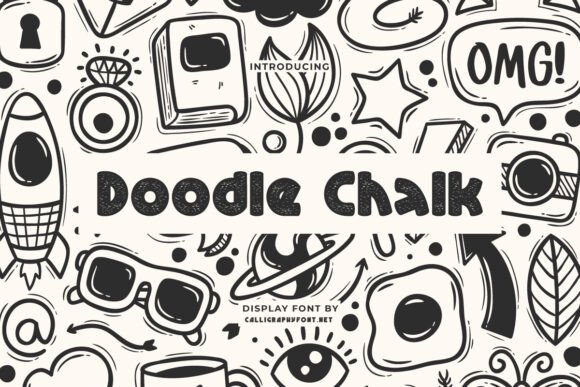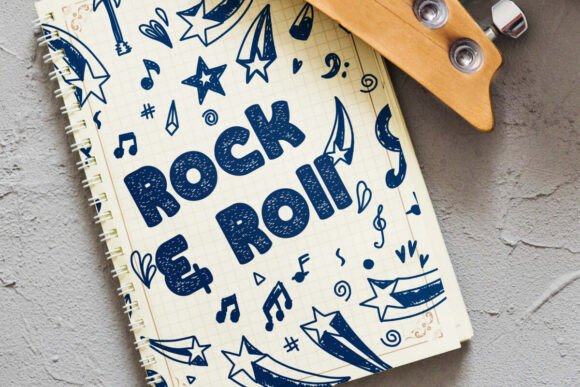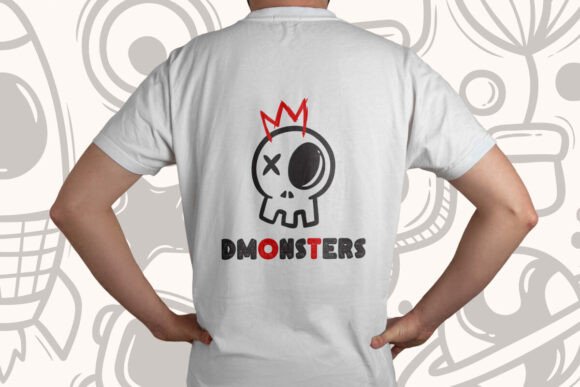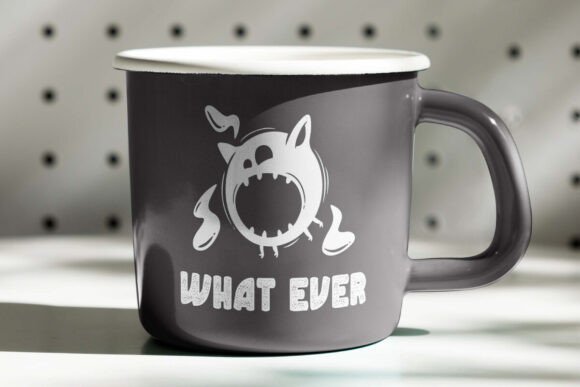
Doodle Chalk Font
About the Doodle Chalk Font
The Doodle Chalk Font offers a perfect balance of form and function for your design needs. Doodle Chalk is a cute chalk board display font with bubble letter shapes in “doodle” textured sketch style. It’s so attractive that it would be perfect on any creative project idea, such as apps, billboard, blog, book, brochure, cafe & restaurant menu board, card, comic, cover, flyer, header, invitation, label, logos, mock up design, mug, packaging, phone case, poster, social media posts, stationery, sticker, t-shirt design, thank you card, title, website, and more!
Doodle Chalk thrives in applications requiring a playful and approachable aesthetic. Ideal uses include children’s books, playful branding for food or beverage companies, event posters, and social media graphics. Its informal nature makes it perfect for short headlines and titles, but less suitable for body text or UI elements where readability is paramount.
For optimal impact, pair Doodle Chalk with a clean sans-serif like Open Sans for body copy, creating a strong contrast between the hand-drawn display font and a legible text font. Alternatively, a simple serif like Lora can provide a touch of sophistication, balancing the font’s informal charm. Avoid pairing it with other highly decorative or overly stylized fonts to prevent visual clutter.
The font’s core personality is undeniably cheerful and informal; its hand-drawn quality evokes a sense of whimsy and approachability. This makes it unsuitable for projects requiring a serious or sophisticated tone.
Doodle Chalk Font Usage Examples
Doodle Chalk Font Example